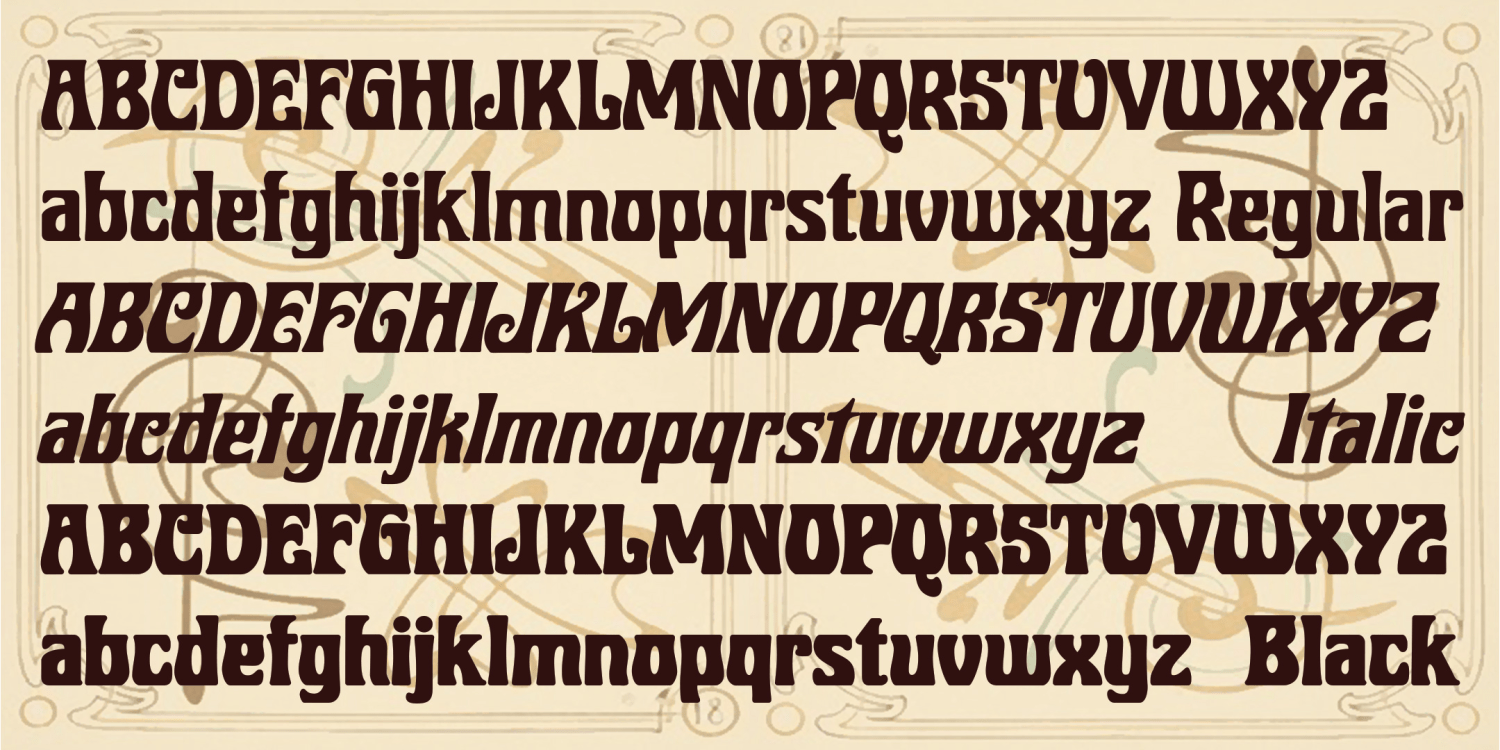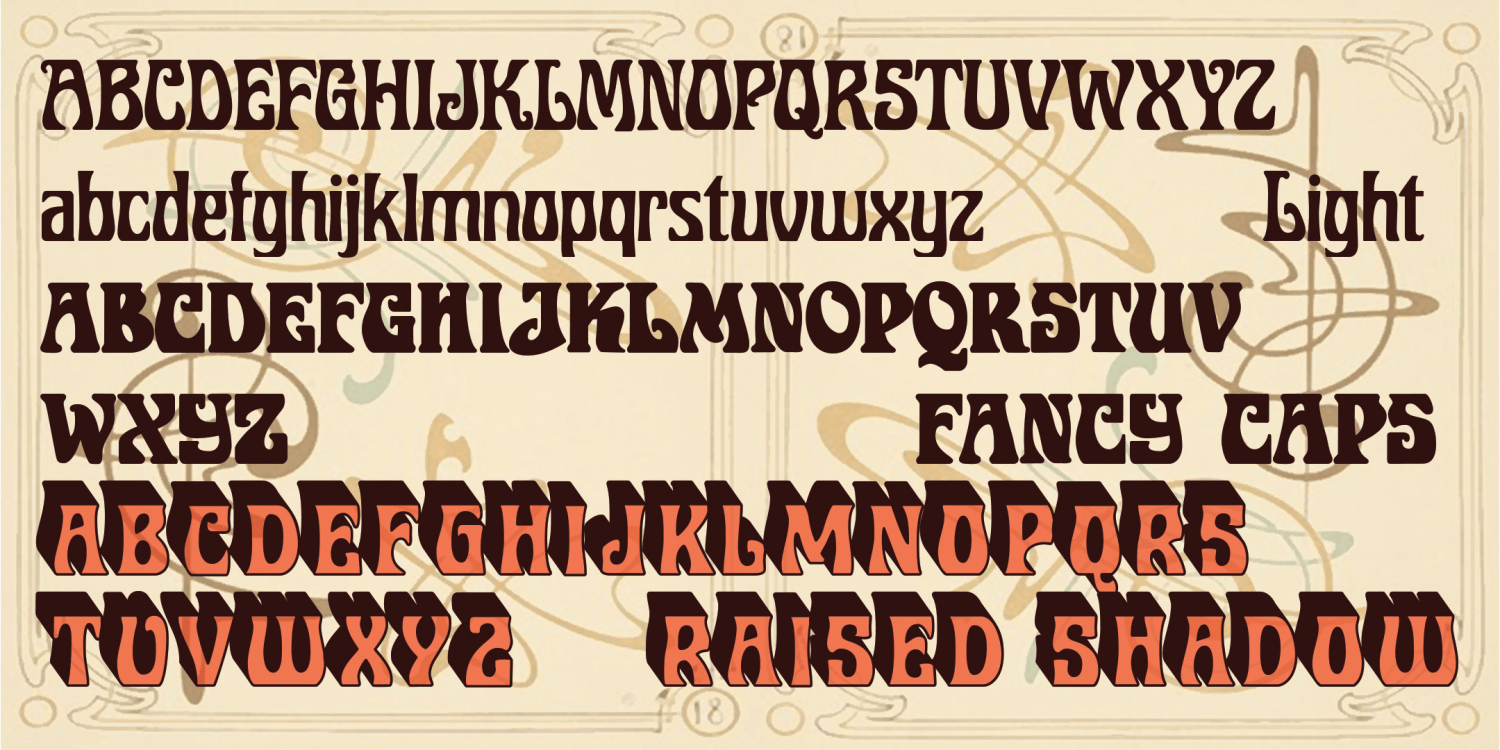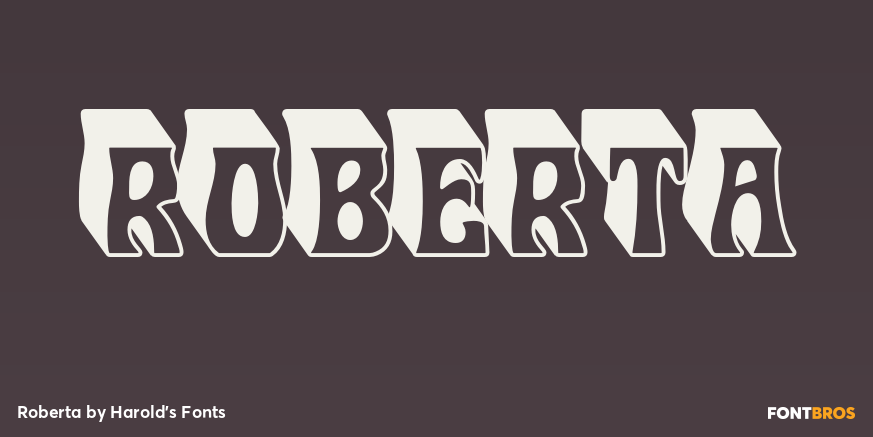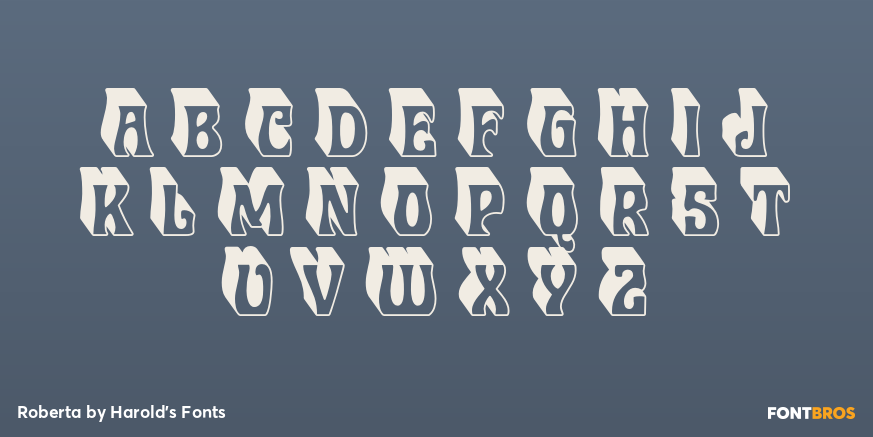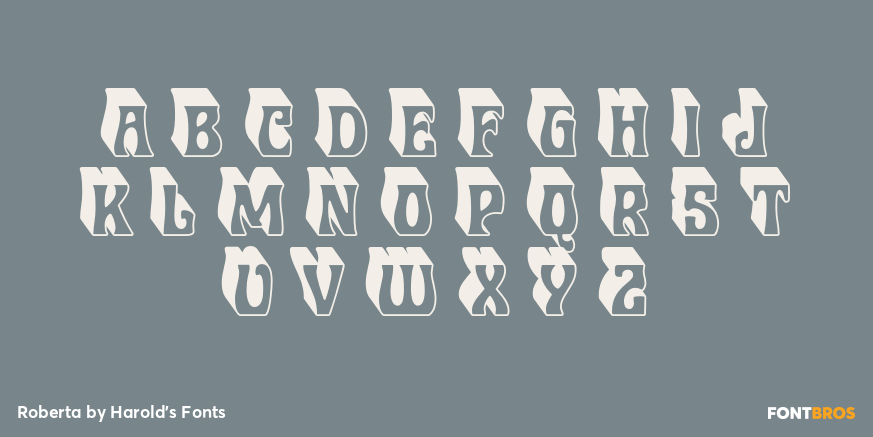
Roberta
Font Family by Harold's Fonts
ROBERTA is a digital interpretation of Bob Trogman's delightful Art Nouveau analog original. This classic font suggests elegance and fun, exoticism and friendliness.
Bob's story: "I originally hand cut this font in 1962. It is based on a Belgian restaurant sign. I named it after my daughter Roberta. Many Mexican food companies used this font, but they didn't know it was from Europe. Dan Solo was going to digitize it for me, but he retired from the font business last year. Just give me credit for the design and it is all yours to do what you want."
Later I found an example of ROBERTA RAISED SHADOW in a book and just had to make it too. I also made a special version of regular Roberta, adapted for use as a fill with the basic shadow font. And now, thanks to the receipt of a scan from a vintage catalog and more assistance from Bob, I have recreated ROBERTA ITALIC, ROBERTA BLACK, ROBERTA FANCY, ROBERTA LIGHT (formerly Roberta II) and ROBERTA INITIALS (Roberta III) , all in the same curvy vein with some surprising differences.
Roberta Regular, Italic, Light, and Black contain full upper and lowercase, numbers, symbols and international characters. Like the originals, Roberta Raised Shadow & Fill, Roberta Fancy and Roberta Initials do not have lowercase; the Roberta Black can be paired with the latter two.